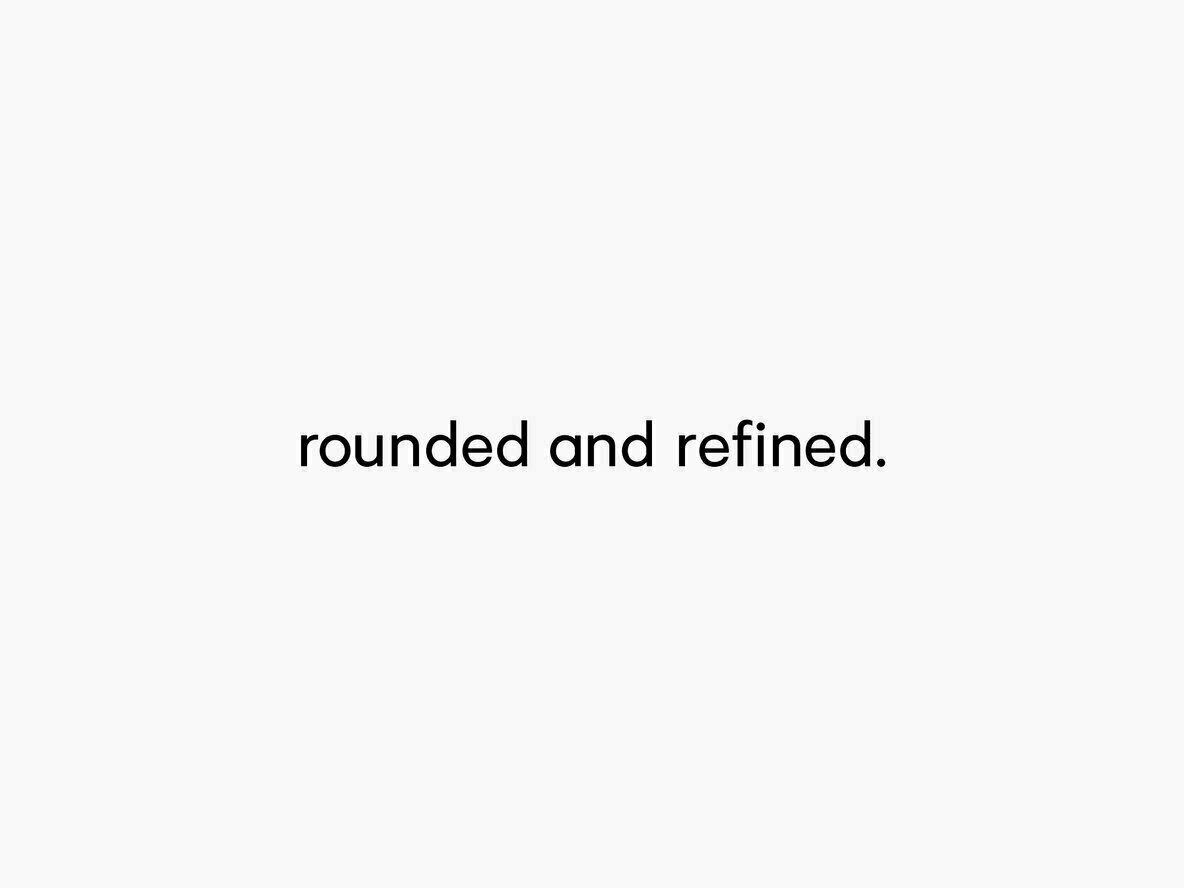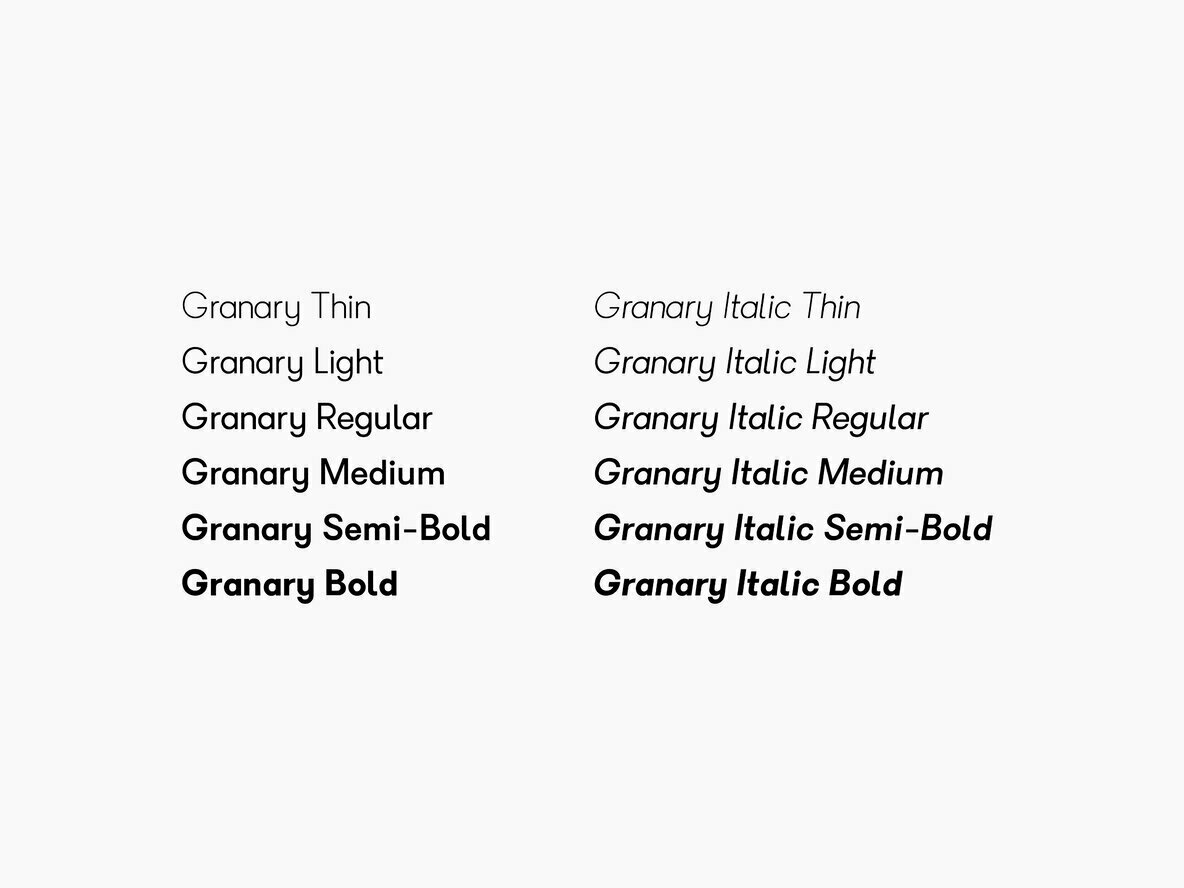
Granary Typeface Font
Granary is a clean, geometric typeface that explores a design style of low x-height and neat curves.
Studio Few, founded by Samuel Oakes, is a renowned type foundry celebrated for its minimalist and purposeful font designs. Focused on refining typography to its purest form, Studio Few believes that every design decision should carry meaning without excess or complexity. For nearly a decade, Studio Few has bee...